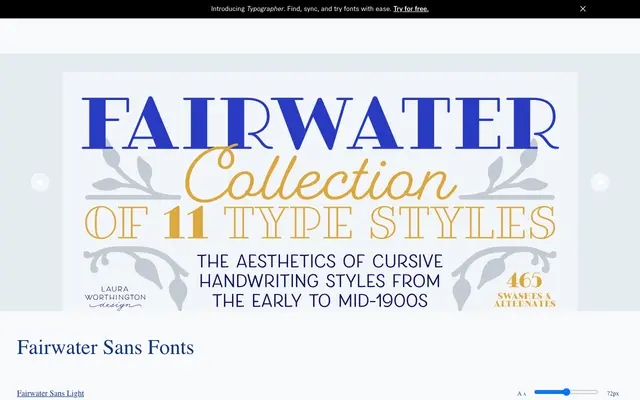
Fairwater
A nostalgic script family drawn from early 20th-century cursive handwriting and naval tattoo lettering, bundled with a matching sans, decorative serifs and an extensive ornamental font.
The collection spans a connected script in three weights, each loaded with 465 swashes and alternates including ending forms, isolated letters and contextual variants, alongside a three-weight sans and four decorative serif cuts. A separate ornament font, DIY Lines, contributes 250 characters of ships, anchors, rope, botanicals and arrows that share stroke weight and proportions with the type. The pictorial themes and simplified letterforms lean clearly toward vintage Americana and maritime design work.
The family centres on a connected cursive script inspired by early-to-mid 20th-century handwriting and tattoo lettering, which defines its primary classification; the accompanying sans and decorative serifs are supporting members of the collection.